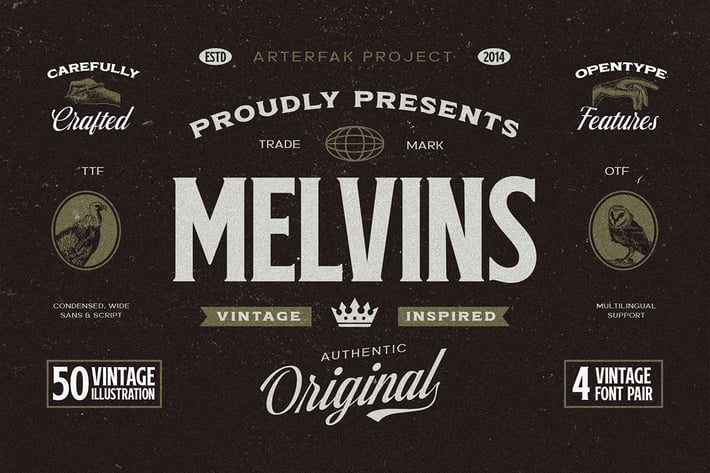
Melvins - Font Set
Introducing Melvins - Font Set. The font combination which inspired by the vintage design. Includes 4 fonts with different styles that have unique looks, and are perfect pairs when combined.
This font set is carefully designed with high attention to give a feel of vintage, old-school, and classic. Melvins consist of Condensed, Light, Expanded, & Script styles that are versatile to be used for many design purposes.
Fonts featured :
All capitals character set
Lowercase (script)
Symbols & punctuation
Stylistic Alternates
Swashes (script)
This font set is carefully designed with high attention to give a feel of vintage, old-school, and classic. Melvins consist of Condensed, Light, Expanded, & Script styles that are versatile to be used for many design purposes.
Fonts featured :
All capitals character set
Lowercase (script)
Symbols & punctuation
Stylistic Alternates
Swashes (script)